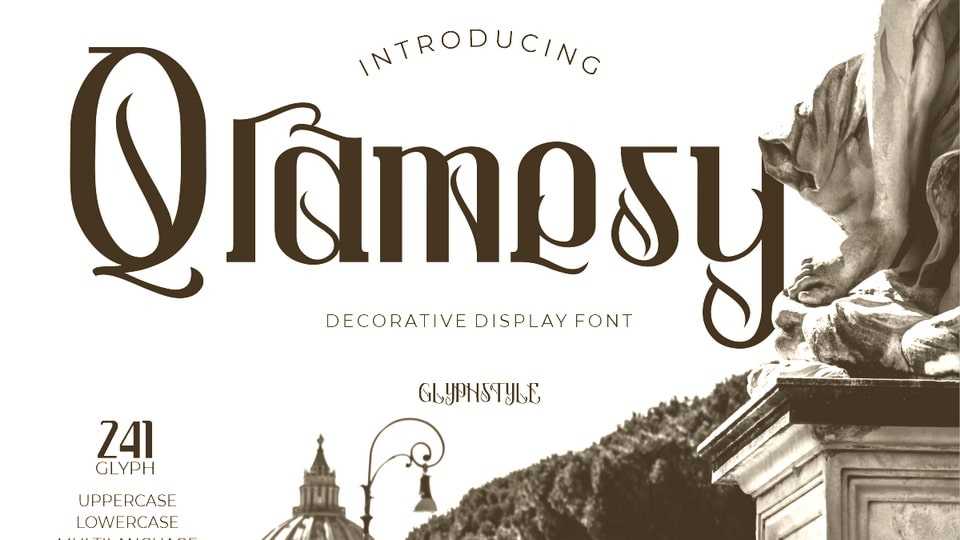
Download Qramesy font, a decorative display typeface, in retro and vintage style. Its bold shape and combined with creative décor, this font looks beautiful.